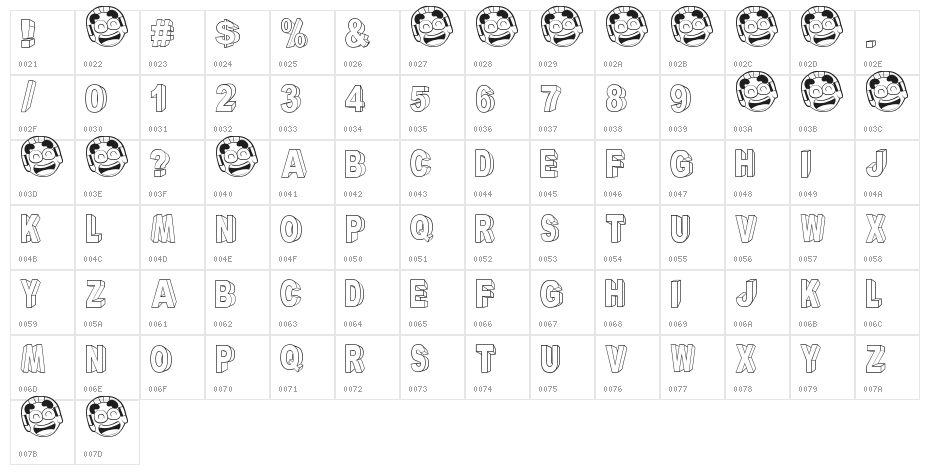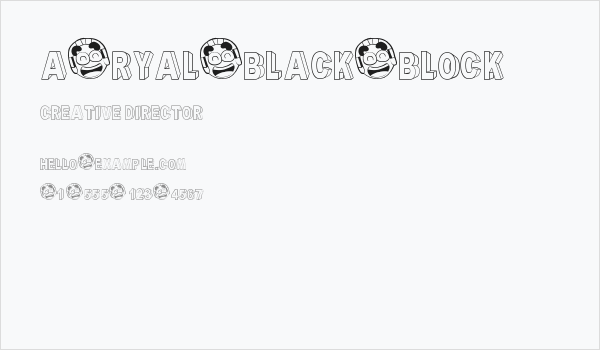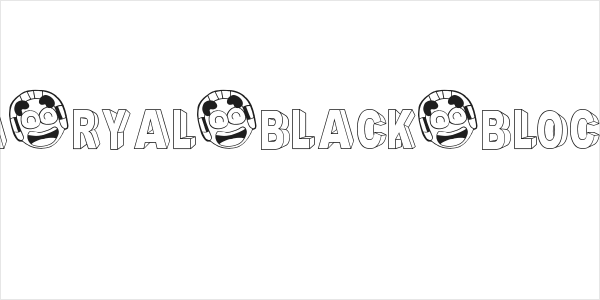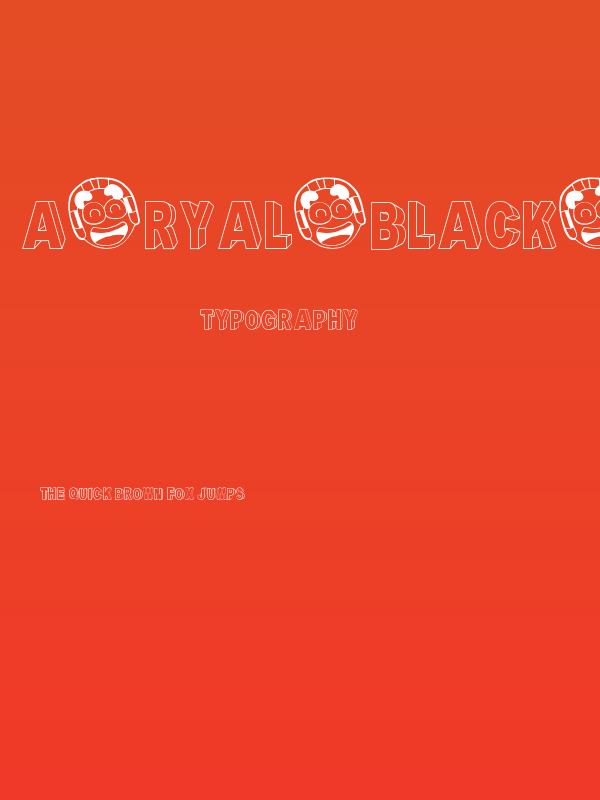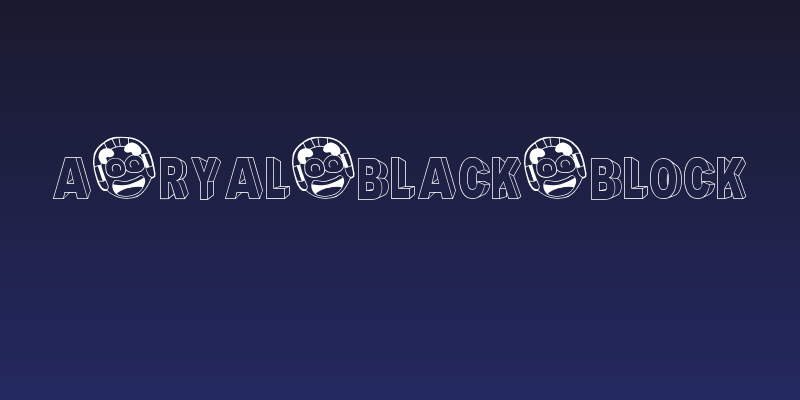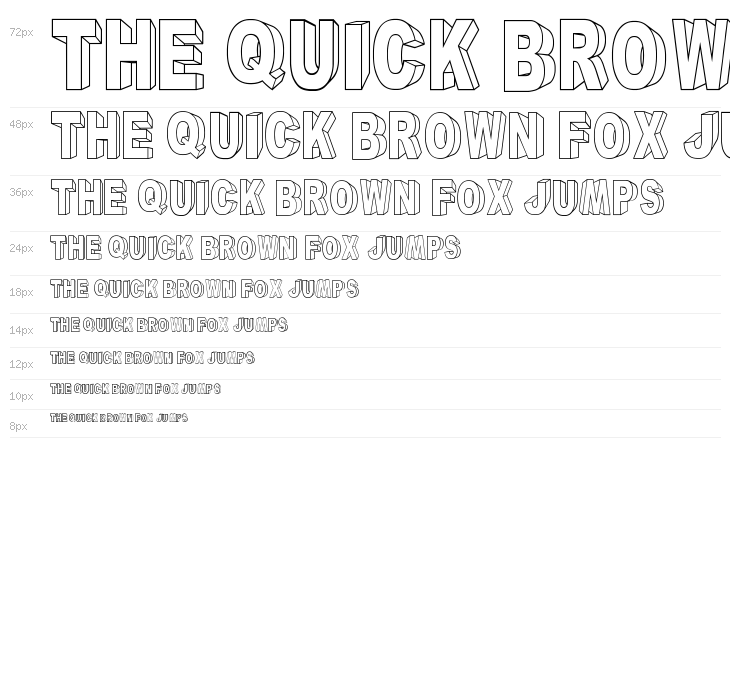
A-Ryal-Black-Block Font
A-Ryal-Black-Block Description
This font features a bold, three-dimensional block style with a strong presence. Each character is designed with a shadow effect that gives it depth and a sense of solidity. The letters are uniformly wide, with a consistent stroke weight that emphasizes their boldness. The overall appearance is modern and impactful, making it suitable for attention-grabbing designs. The font's geometric structure and clean lines contribute to its contemporary aesthetic, while the shadow adds a playful touch. This style is ideal for projects that require a strong visual statement.
| Proposed Projects | Ideal for headlines, posters, logos, and any design requiring a strong visual impact. |